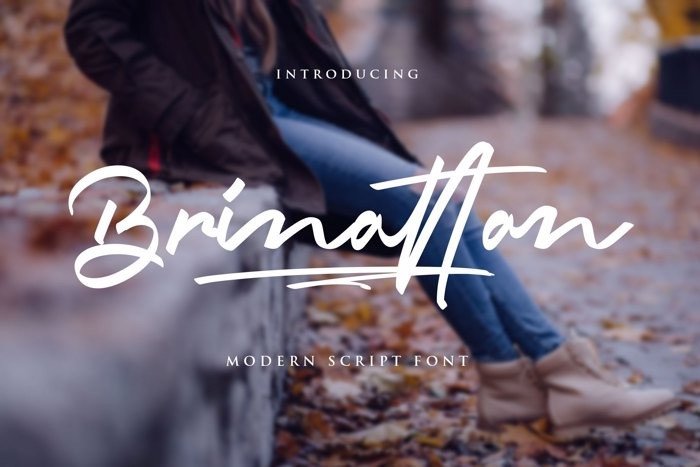
Brinattan Script Font Free
Brinattan Script Font is an exciting handwritten font with natural nuance. A lovely modern font that bring you natural handwritten feel with lots of alternates.